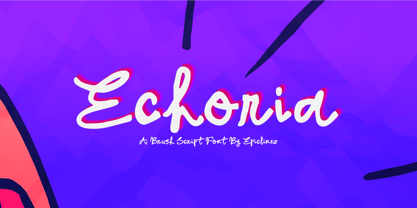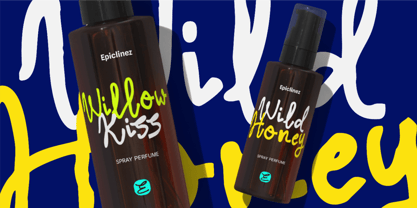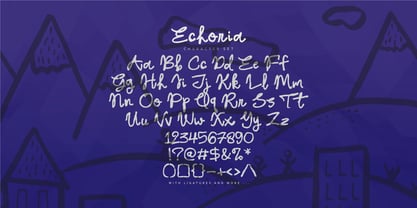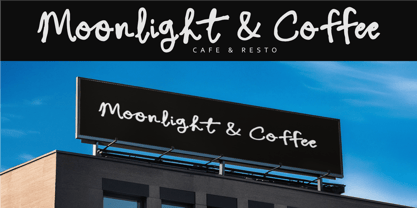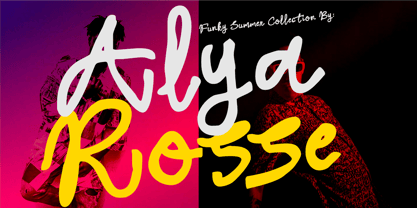
Echoria
by Epiclinez
The Echoria Font Family was designed by Aldy Sidik and published by Epiclinez. Echoria contains 1 styles. More about this family
Echoria is a natural brush script font crafted with authentic hand-drawn strokes and a smooth, flowing style. Designed to bring an organic and elegant touch, this font combines modern script aesthetics with raw brush textures that feel stylish, expressive, and full of personality. Every curve and ligature creates a soft, handcrafted impression, making it perfect for eye-catching logos, branding, packaging, fashion labels, café designs, beauty products, social media posts, wedding invitations, photography watermarks, and signature-style typography.
With its natural movement and artistic brush details, Echoria delivers a warm, authentic, and modern handwritten feel that works beautifully for both minimalist and bold creative projects. Whether you want a romantic branding look, a luxury logo, or an organic lifestyle aesthetic, Echoria adds charm and character to every design.